40 Fantasy fonts that open up worlds of magic
Embrace a magical fantasy world with these unique mystical fonts.
These fantasy fonts can be called fun, sometimes mystical, and perfect for creating titles, covers, or logos for books, games, movies, or any other genre of publications or productions.
After countless hours spent exploring the vast realms of fantasy typography, I have compiled what I believe to be the most captivating fantasy fonts available today. They are created by professional designers and are of the highest quality, whether free or premium fonts.
Without further ado, let’s go to the list of best fantasy fonts:
Segamoriz
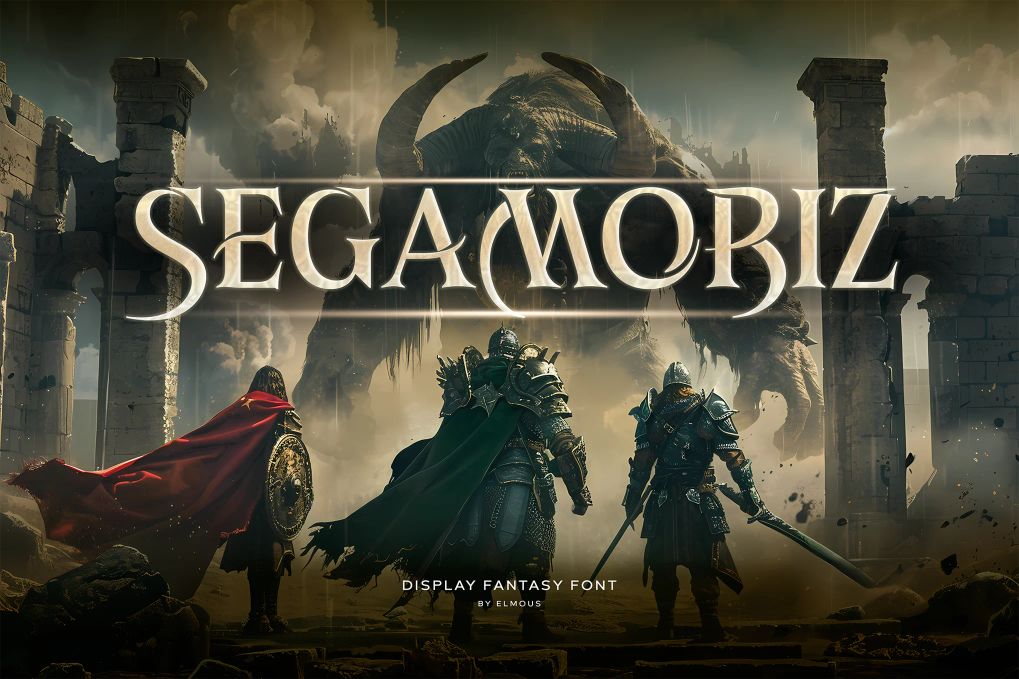
A fantasy display serif designed to evoke the grandeur and mystique of epic tales. Perfect for titles, banners, game, logos, antique, medieval, old English, especially in fantasy or heroic genres. Comes in standard glyphs, punctuation, number, symbol, alternates, ligatures, OpenType features and multilingual support.
Valqriv
A bold and mystical fantasy font designed to bring epic tales and legendary worlds to life. Ideal for covers, posters, flyers, movie titles, game designs, and more. Comes in all standard glyphs and OpenType features, PUA encodes, and multilingual support.
Wizard
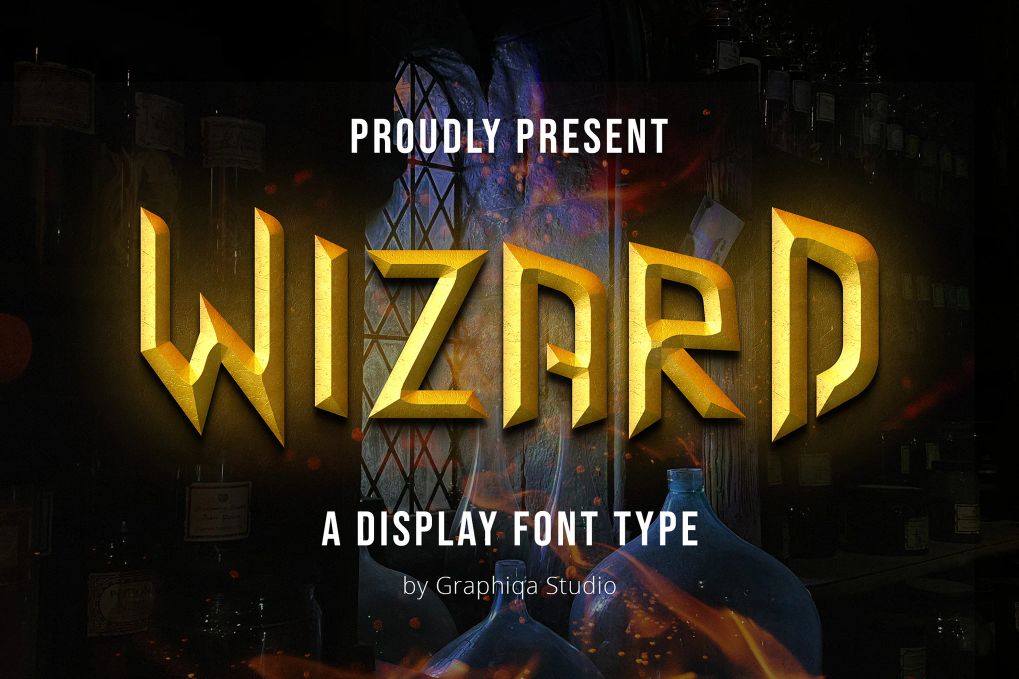
A magic display font has many purpose and suitable for movies, web headers, logotypes, branding, advertising, events, and much more.
Fantasy Magist
A beautiful serif font that combines modern style with old-fashioned charm. Create headlines that stand out, logos that look classy, and beautiful wedding invitations. Comes in regular style with beautiful alternates, full set of numbers and punctuation, support multi-languages.
Pandion
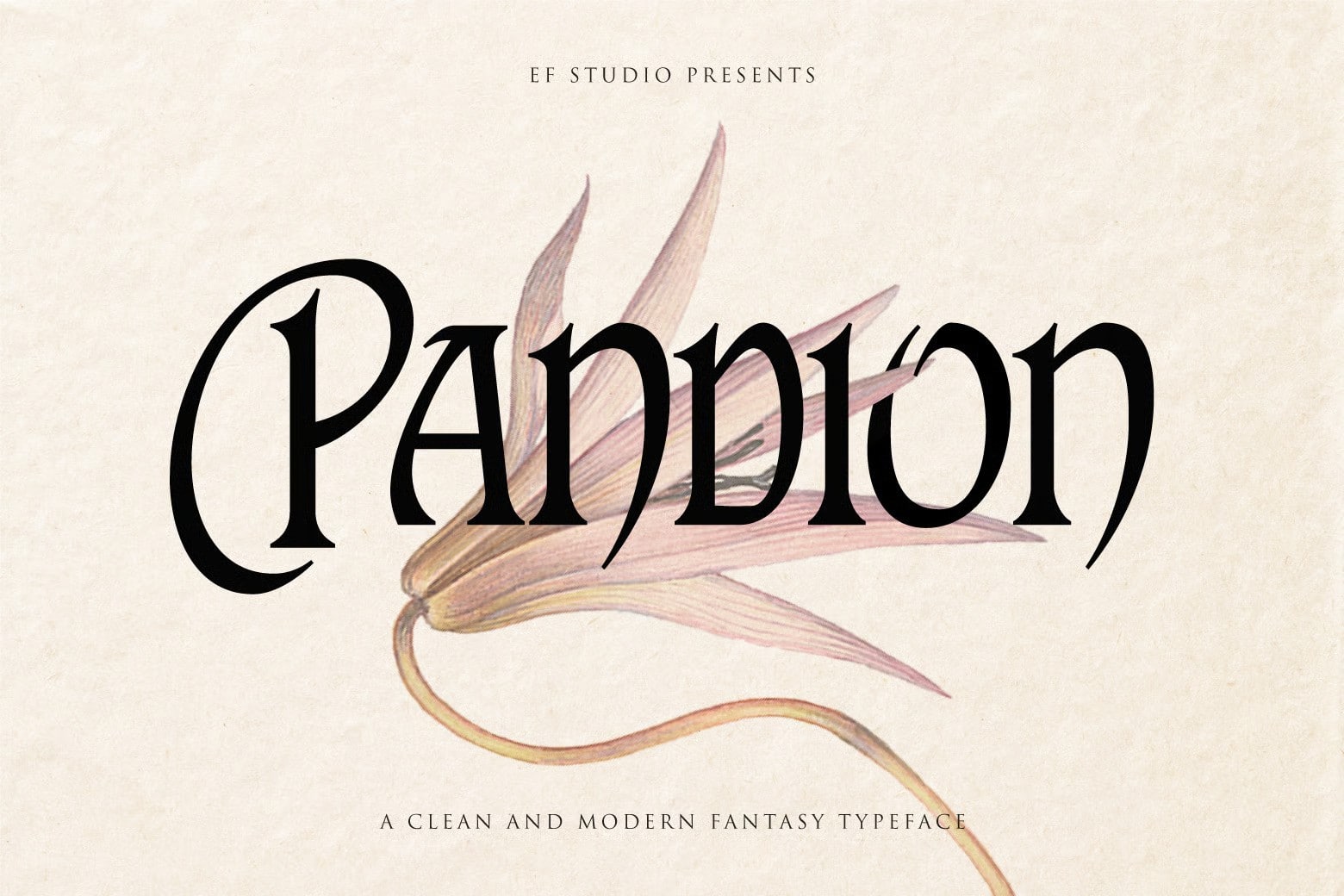
A clean and modern fantasy typeface that blends elegance with a touch of mysticism. Ideal for fantasy titles, book covers, game logos, and any project that calls for a bold yet graceful typographic voice.
Dream Fantasy
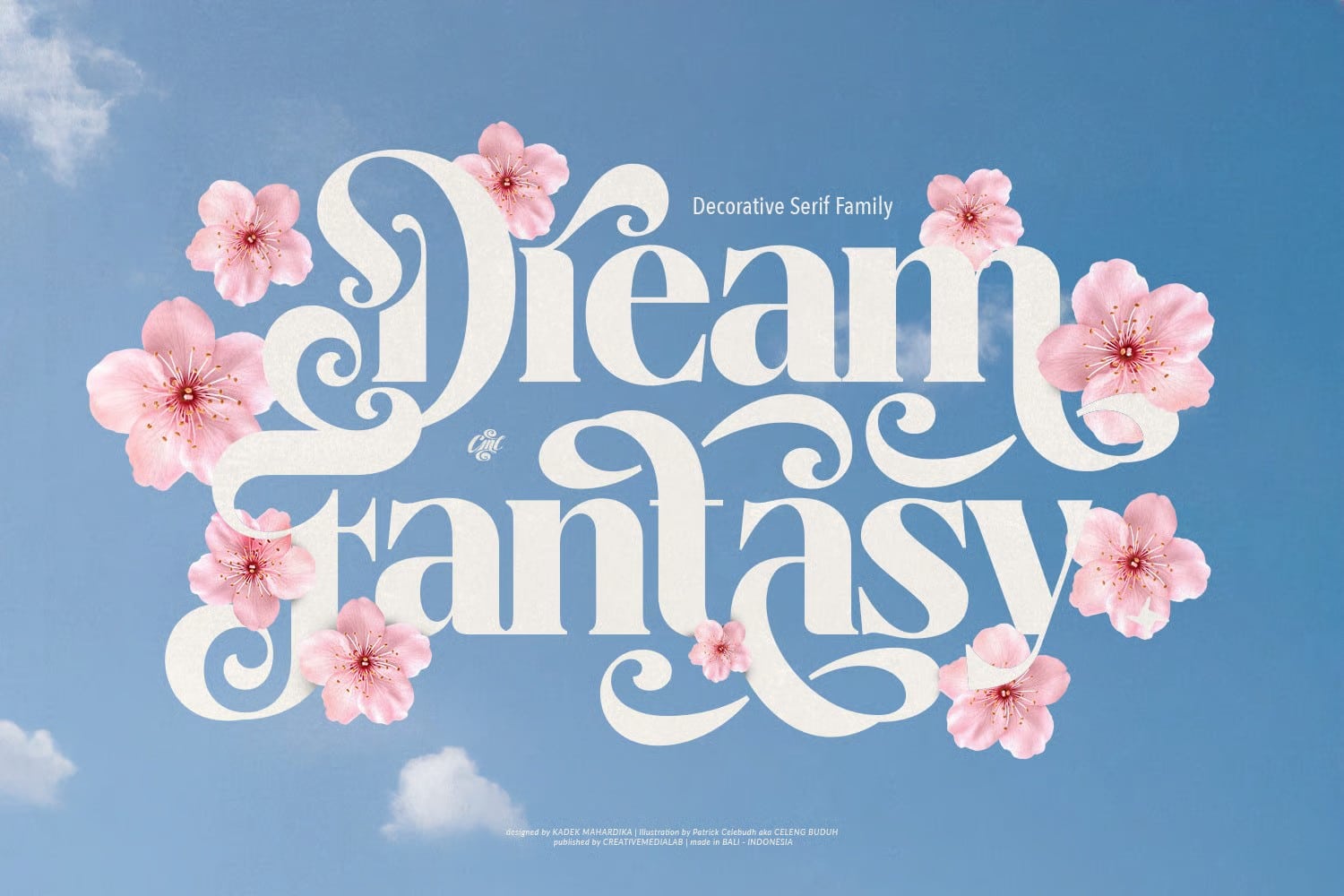
Inspired by the graceful curves of beautiful flowers in an enchanted forest, this font brings a touch of beauty and creativity to your designs. With a variety of style alternatives, you can create unique typography, headlines, logos, or beautiful monograms.
Halther
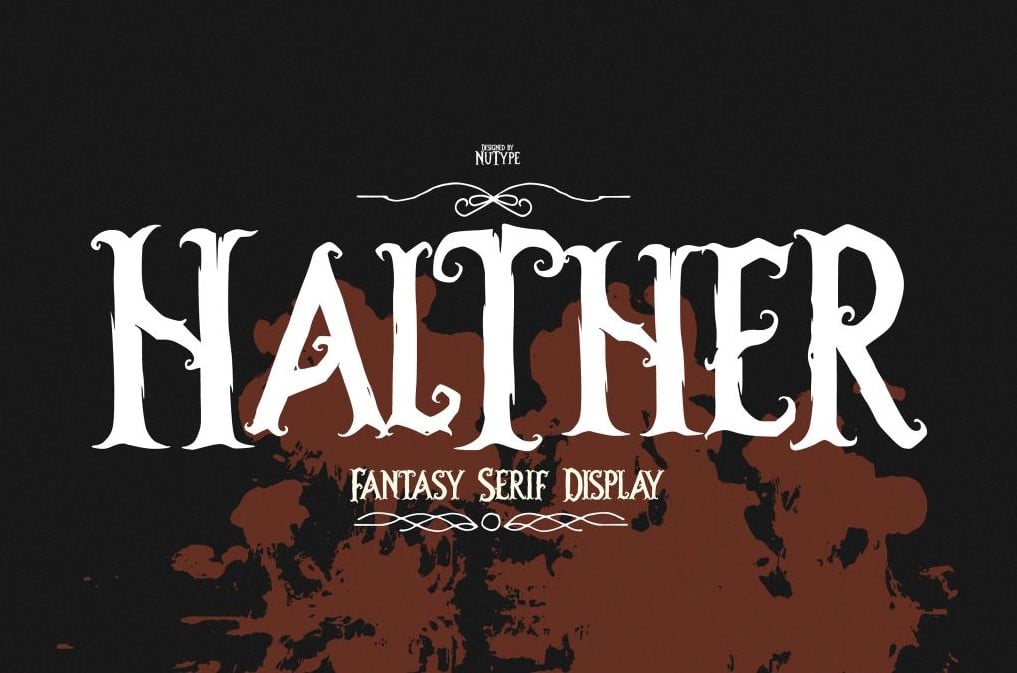
A gothic–fantasy display serif font designed to bring a mysterious and dramatic touch to your projects. Perfect for posters, covers, games, branding, movie titles, or any design that needs magical vibe. Comes in all caps and multilingual support.
Aquary
A fantasy display serif font that brings a sense of enchantment and elegance to your designs. Perfect for projects that need a standout, fairy-tale quality. Comes in uppercase and lowercase characters, numerals, punctuation, OpenType features, accents, PUA encoded, and multilingual support.
Wonder Night
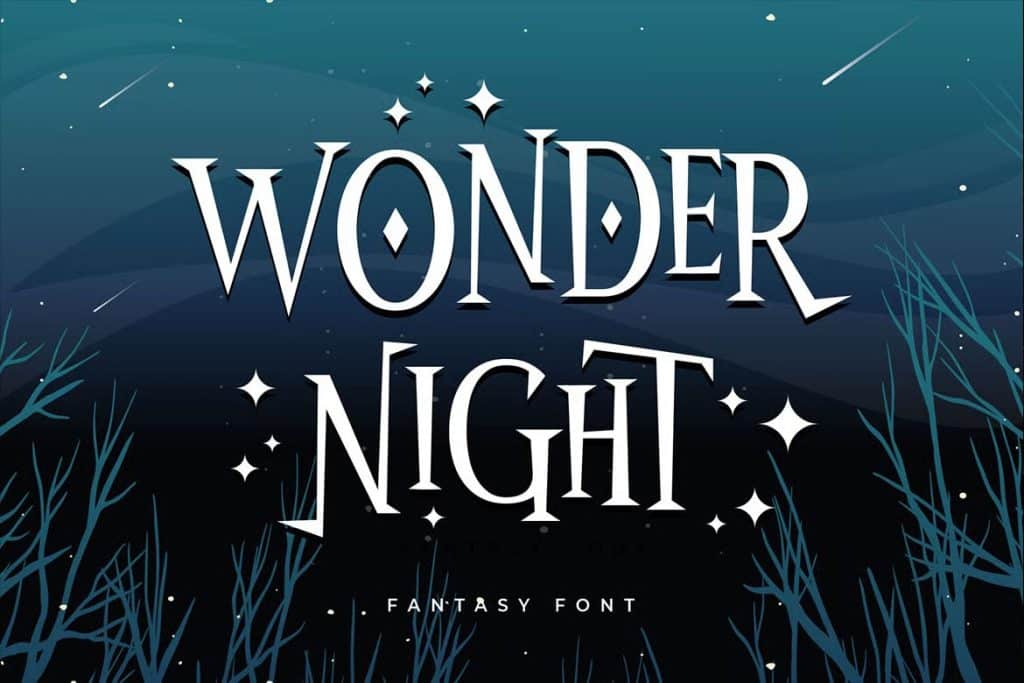
A fancy fantasy font inspired by magical storybook and horror-fantasy movies. Comes in uppercase and lowercase characters, numbers, punctuations, symbols, stylistic alternates, and doodles.
Gothic Fantasy
A bold gothic display font that blends medieval mystique with timeless fantasy aesthetics. Perfect for fantasy titles, dark branding, game logos, book covers, movie posters. Comes in full character set, and PUA encoded.
Dragon Hunter (Free)
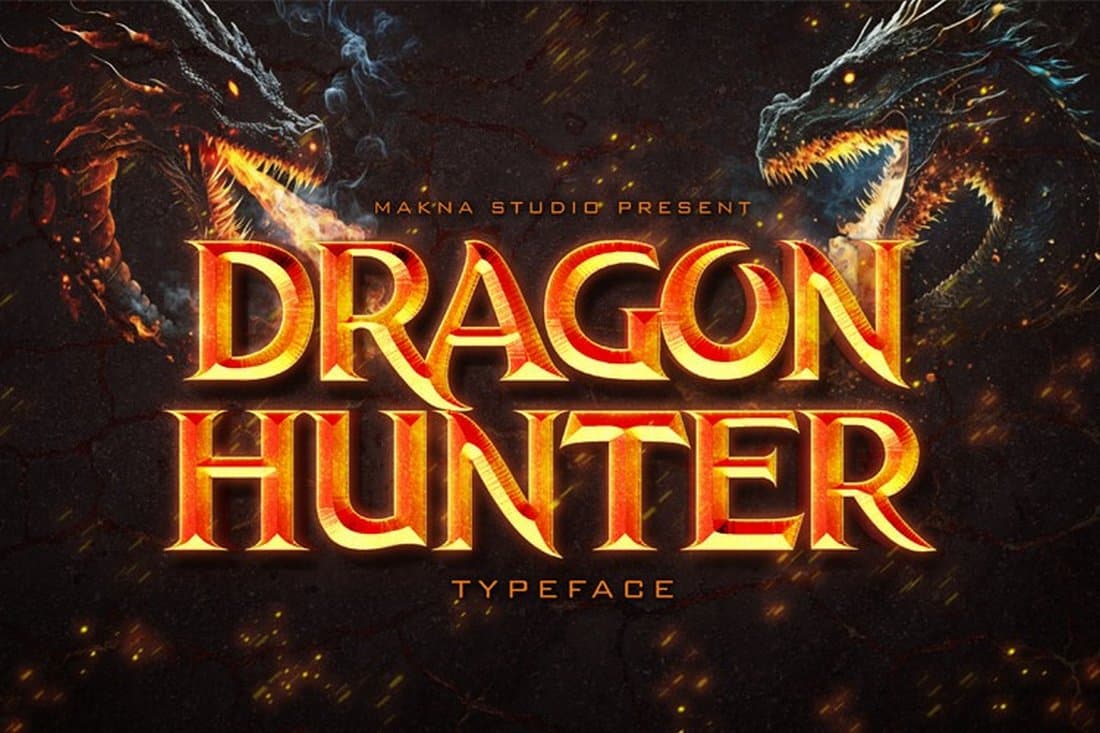
A unique serif font designed specifically for epic films and games. Comes in all caps characters, numbers, and punctuations.
TF Song Burn (Free)
A striking and unique design that is sure to bring a touch of old-world charm to your projects. Ideal for titles, book covers, film titles, posters, and more.
Fantasy (Free)
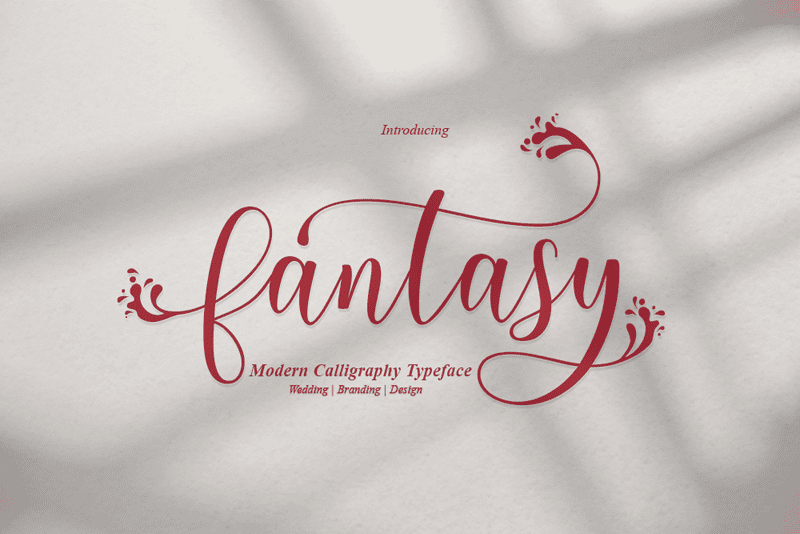
A beautiful fantasy font with stylistic endings. Best for designs such as invitations, greeting cards, postcards, and more.
Agenda Fantasy (Free)
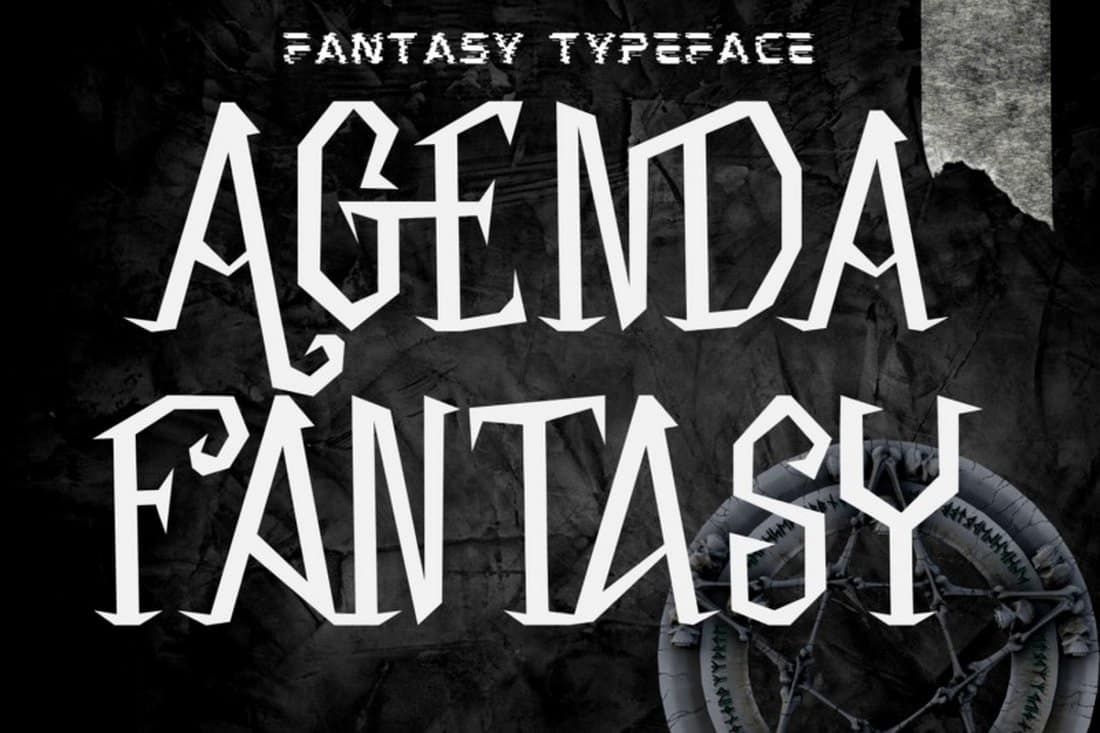
A breathtaking free fantasy typeface. It’s a creepy and spooky looking display font. It is perfectly suitable for any Halloween-related project or crafty idea. Comes in all caps, special ligatures and alternates.
Neverland
An epic typeface for you to make the design feel wonderful due to your imaginative fantasy idea. Comes in all caps characters, ligatures, ornaments (AI+EPS). Ideal for book covers, titles, posters, and more.
Vanderick
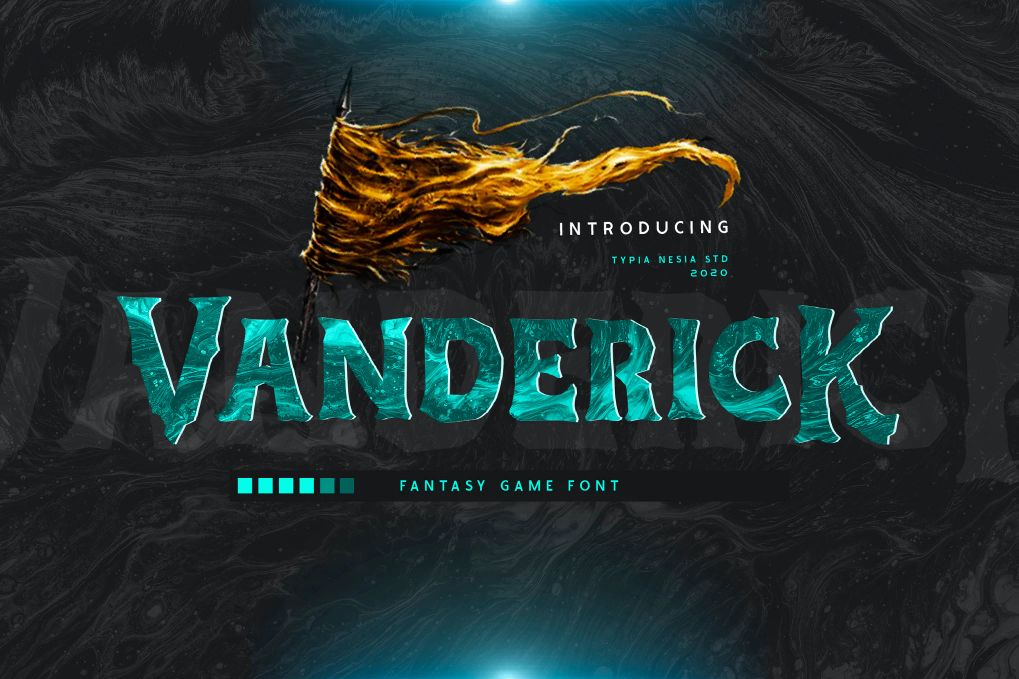
A fantasy game display font so good going for your designs that require a fantasy touch like logos, branding, modern advertising designs, Halloween, gothic designs, apparel, hardcore music, fantasy animations, games, or movies.
Conclusion
Here I have put together all the best fantasy fonts that really convey that exciting atmosphere. Use them in your designs where you need something unique or more interesting. The most important thing is that you will no longer have to experiment, use what has already been selected without the need to search for these fonts on the Internet. Everything in one place, here and now.